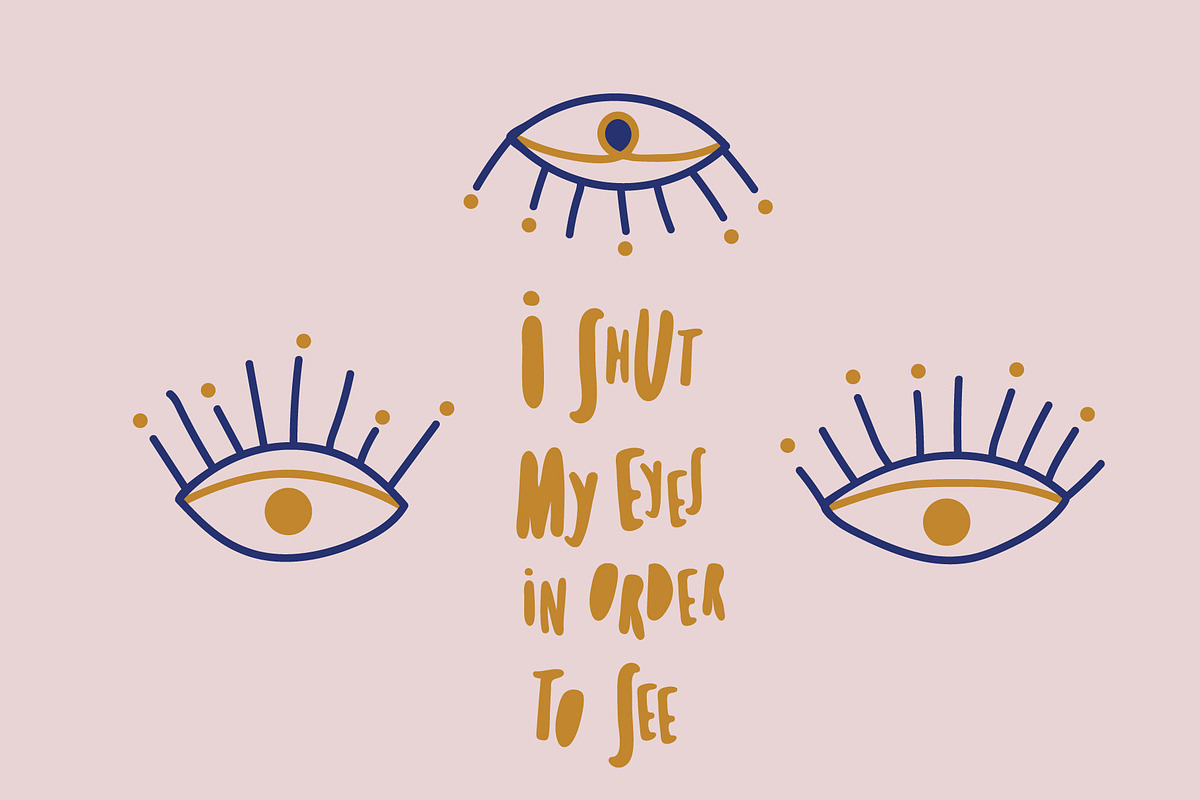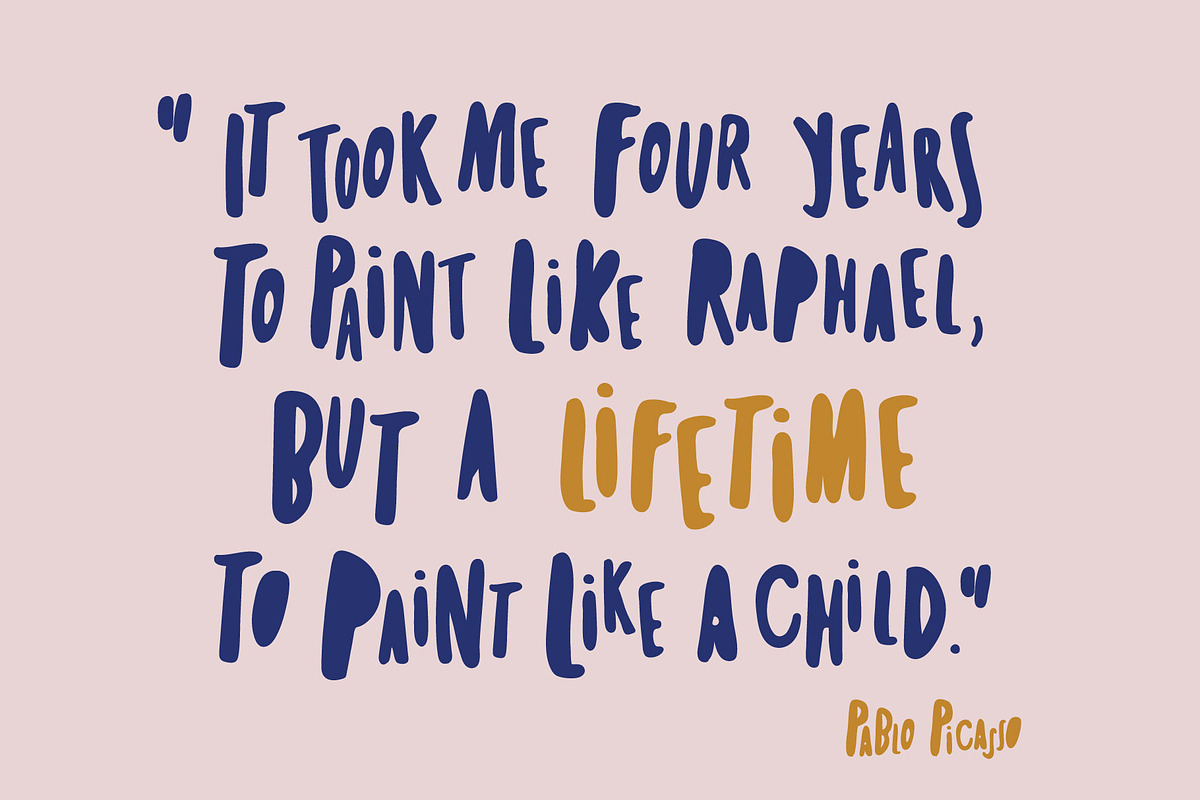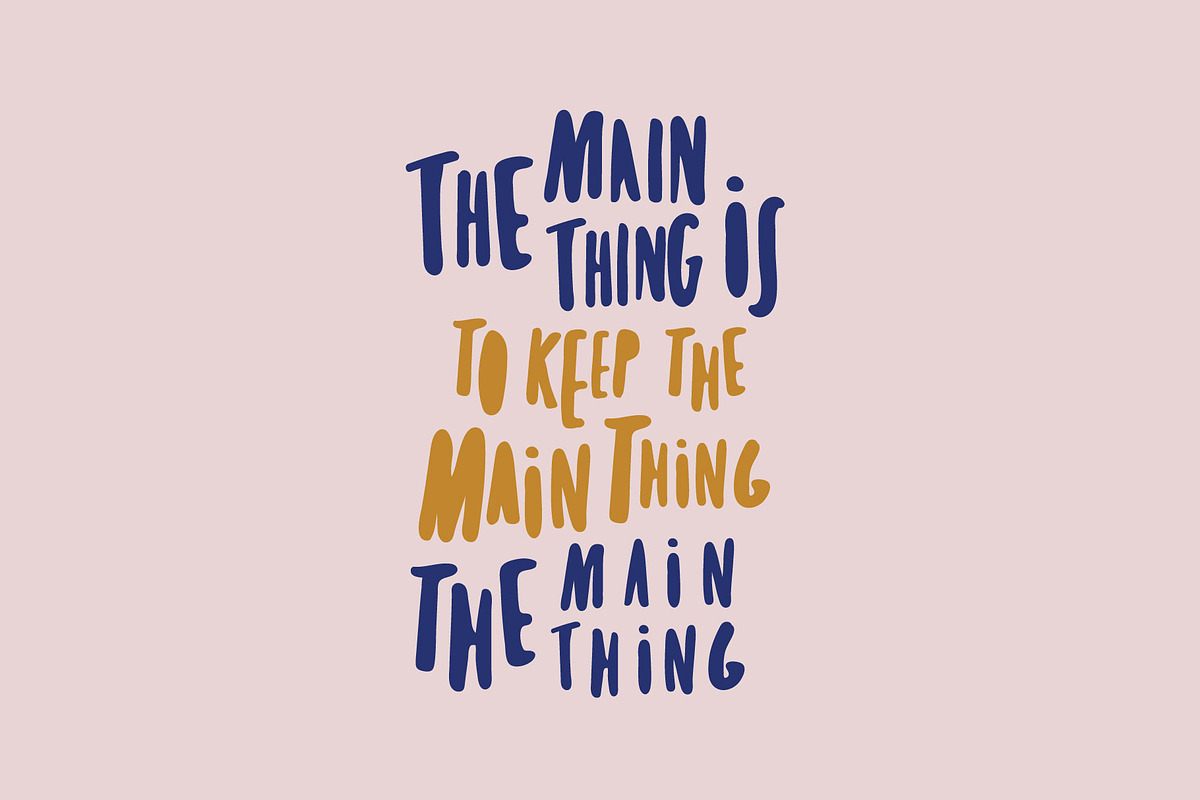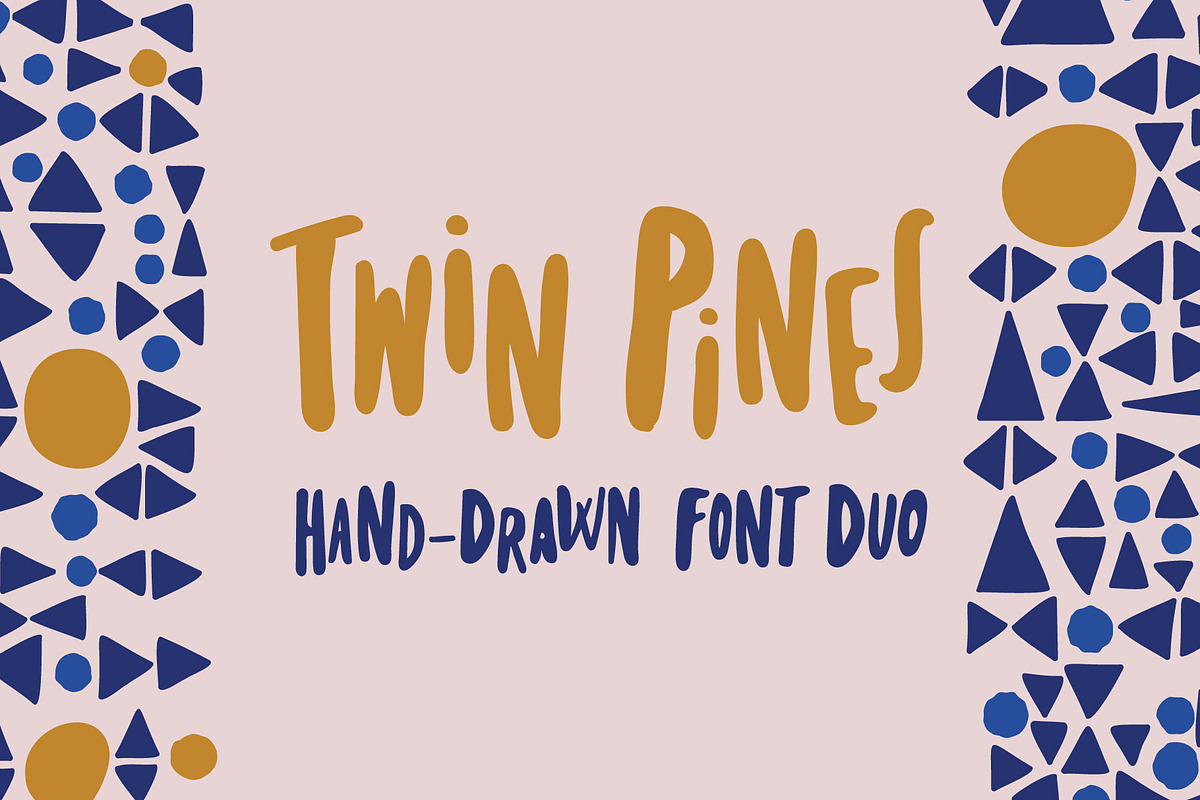
Twin Pines | Font Duo
Twin Pines | Font Duo by Lili Lövei is a font selected for branding, posters, packaging, typography.
- By changing the lower- and uppercase letters you can easily achieve a unique handwritten, marker style font.
- Vary the lower- and uppercase letters to achieve a new, unique design every time you use it!
Why Twin Pines | Font Duo is worth a look
Twin Pines | Font Duo by Lili Lövei fits naturally into Branding, posters, packaging, typography.